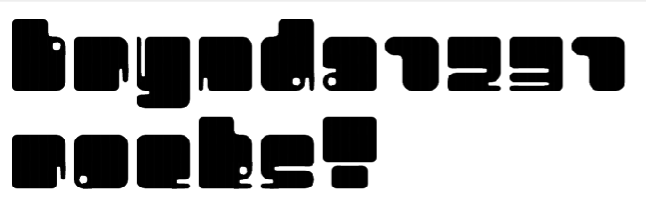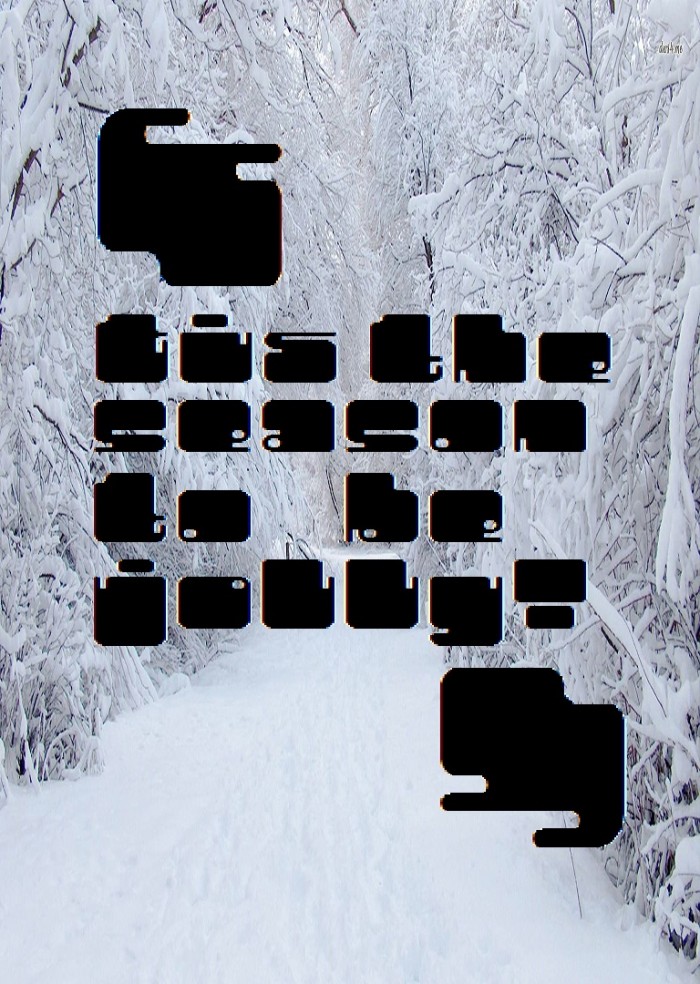
• Upper case is high, lower case is low. And it was going fine untill the letter x came along. Well it's a stupid letter anyway, just use 'ks' or 'cs' or even 'cks' instead ;P I think it works now. Call off the spelling reform :D
Ecsellent :) love the double quotes.
Wouldn't this work for x?
Thank you, Yautja! I was afraid the double quotes were a bit too crazy.
Yes, it might, but it sort of violates some of the constrictions I've set up...
I love it! Nice sample on FontOut as well!
Very cute!
Reminds me Luggage Lifter.
10/10 goes to you, master of tiny fonts :)
Another little jewel from you.I've a different proposition for "x". What about an alien counterpoint like this? Looks pretty cool for me!
I like these little chubby nice glyphs, and I'm waiting for the Xx as soon as possible.
I think I prefer the previous alien-like creatures for "x" :)
Maybe, with fewer dots?
I think we can call off the spelling reform now :p
Abneurone, I really like your idea, but I have come up with a less radical solution ;)
Also, I added two hyphens. The lo hyphen is on he '-' (hyphen) and the high is on the '_' (underscore). Slightly unintuitive, but I chose this arrangement, because - at least on my keyboard - you type underscore by holding shift and pressing '-'
Clever solution, that x!
By the way, i did not tell you your solution was so natural and elegant, really in conformity with the style. Congratulations! Maybe i'll make something some day out of my little alien, though, i keep it in some corner of my brain...
I know, the x should be banned from the alphabet. But still, nice font! 10/10
I'n trying to add the numbers for this font, any ideas?
I rock now do I?
You do rock Brynda1231! I have added my own numerals now, taking inspiration from you. I have done them old style, though.
Congratulations! FontStruct Staff have deemed your FontStruction worthy of special mention. “Hi-lo” is now a Top Pick.
This looks like a 60s almost-bellbottom style combined with 'that' iconic camper van shape :D  Congratulations on the TP!